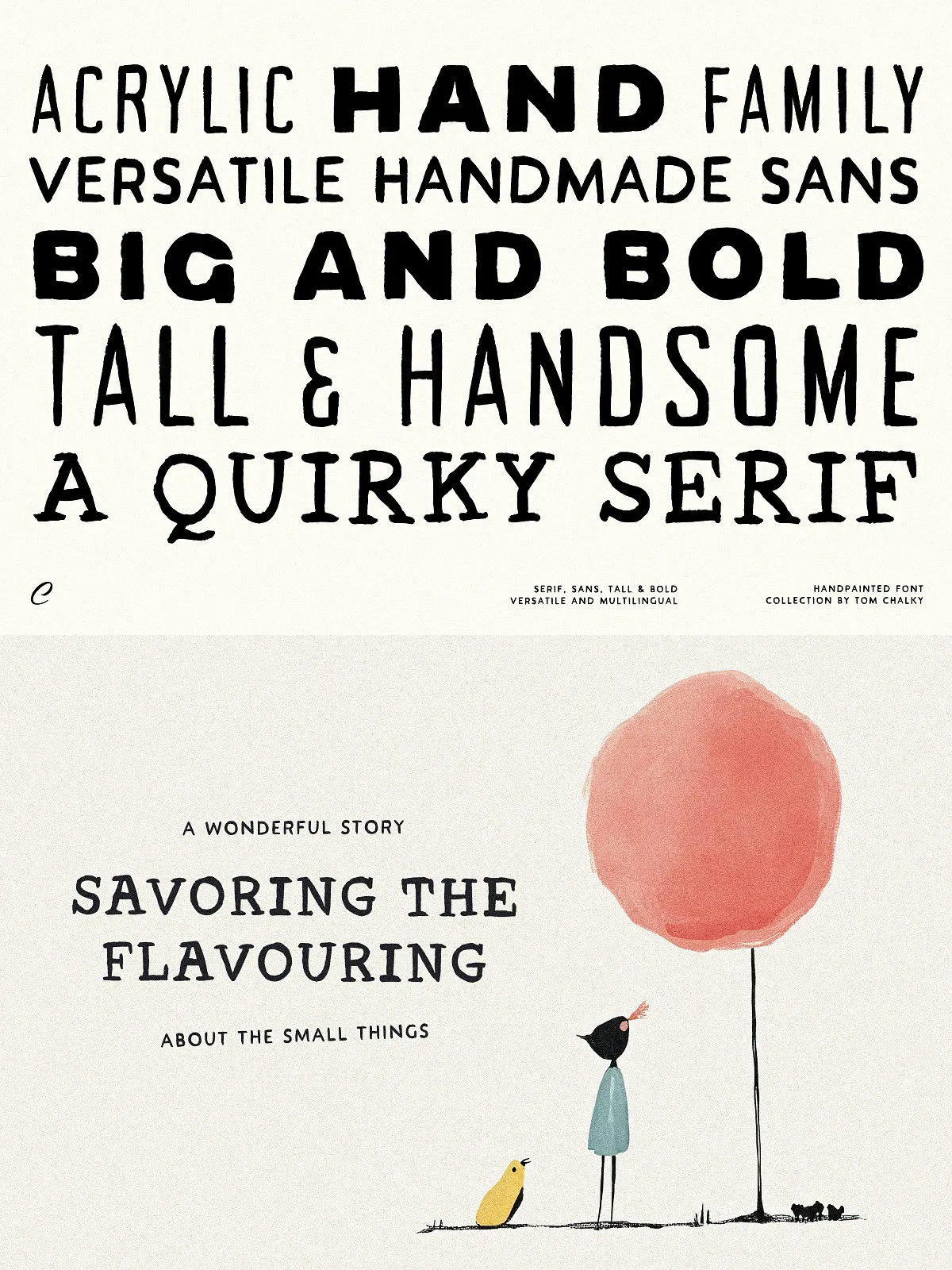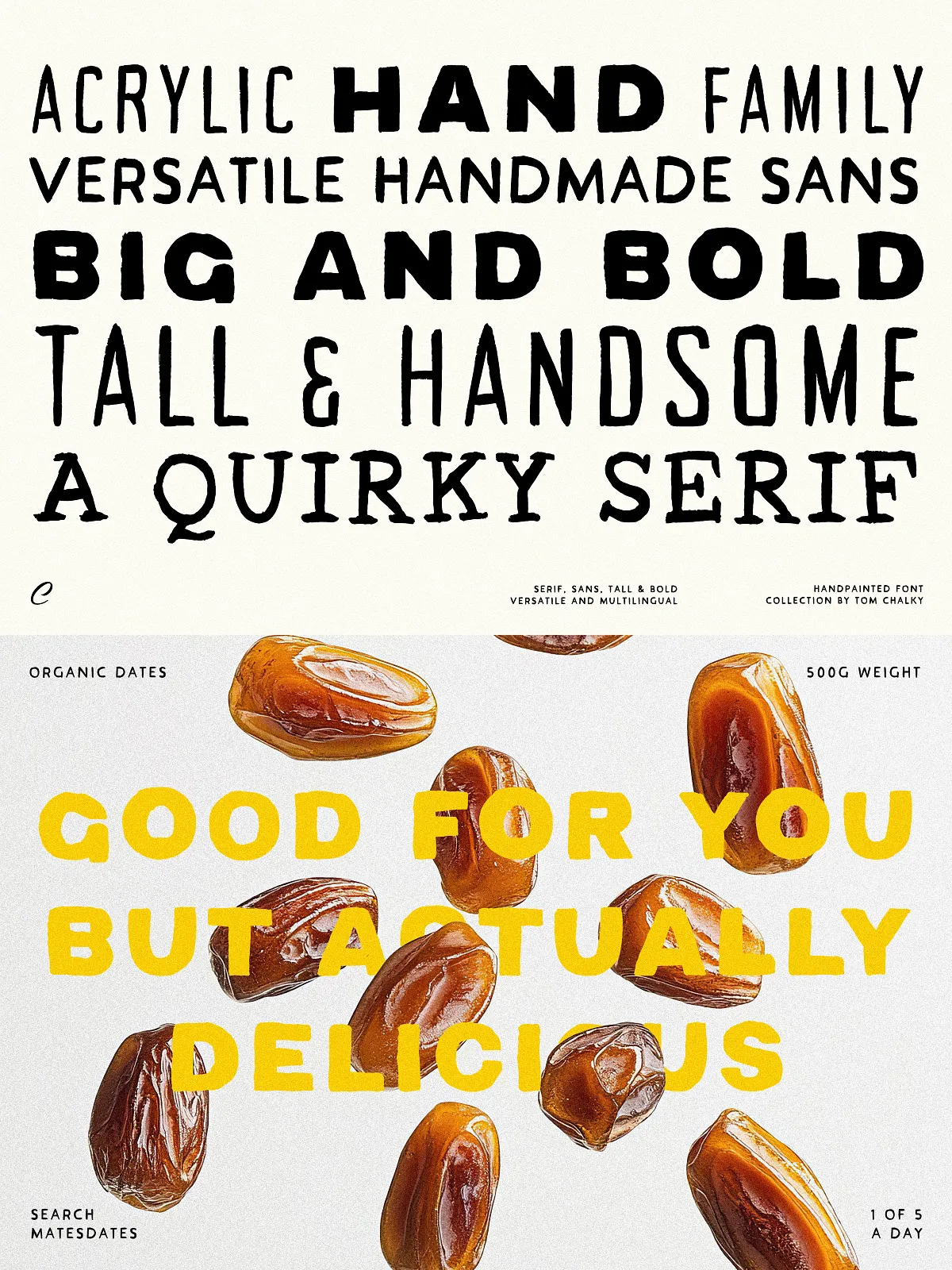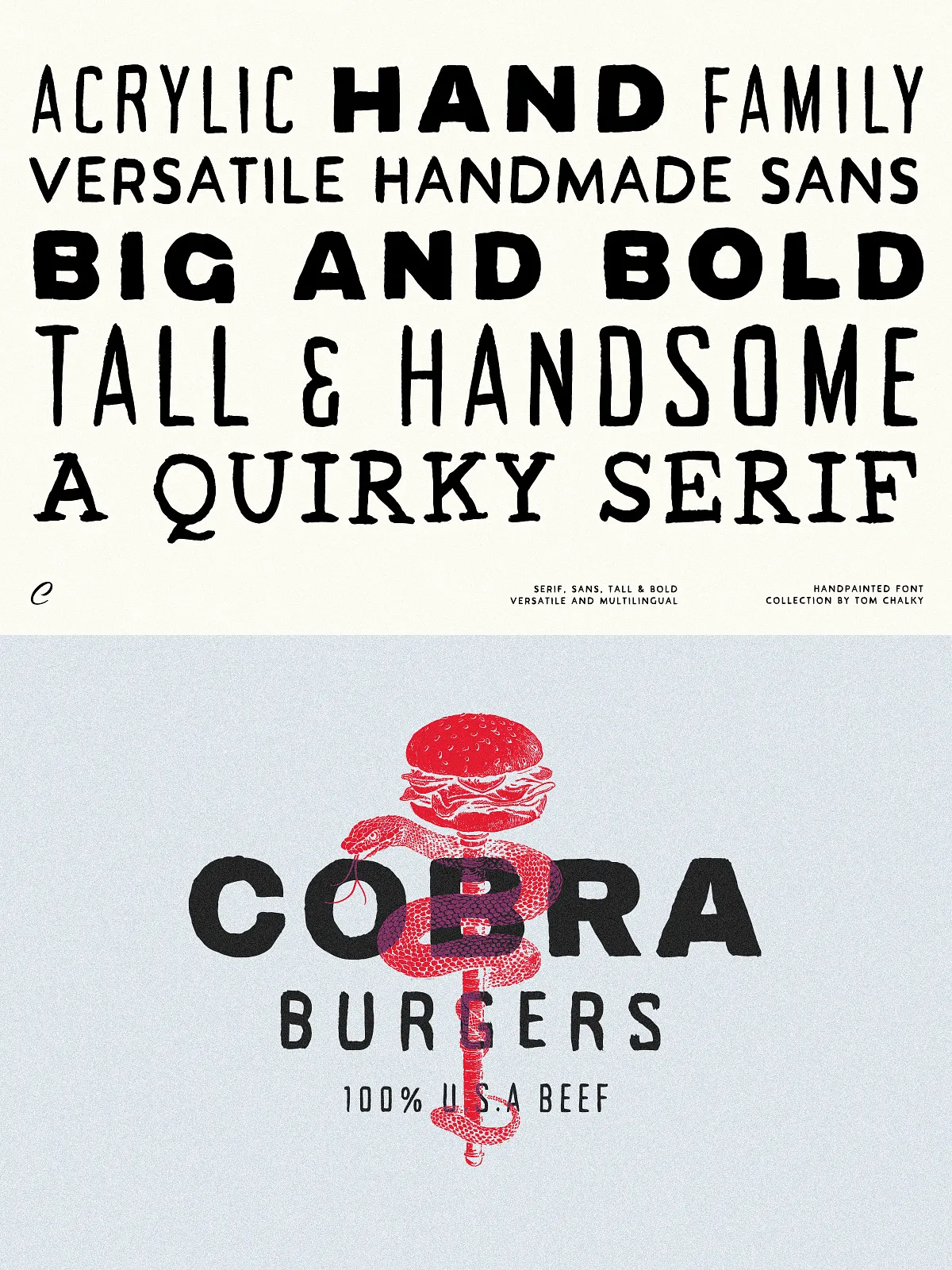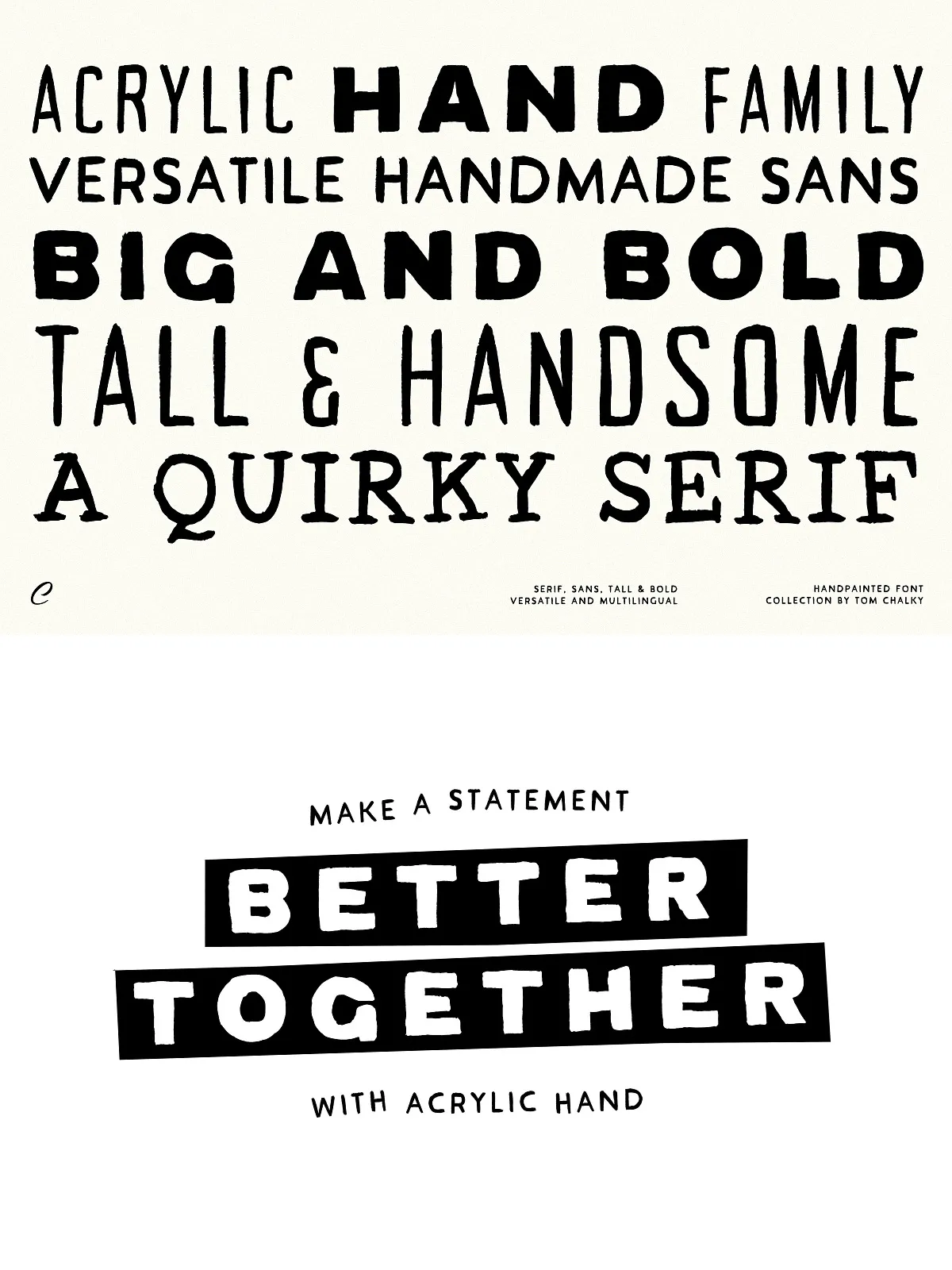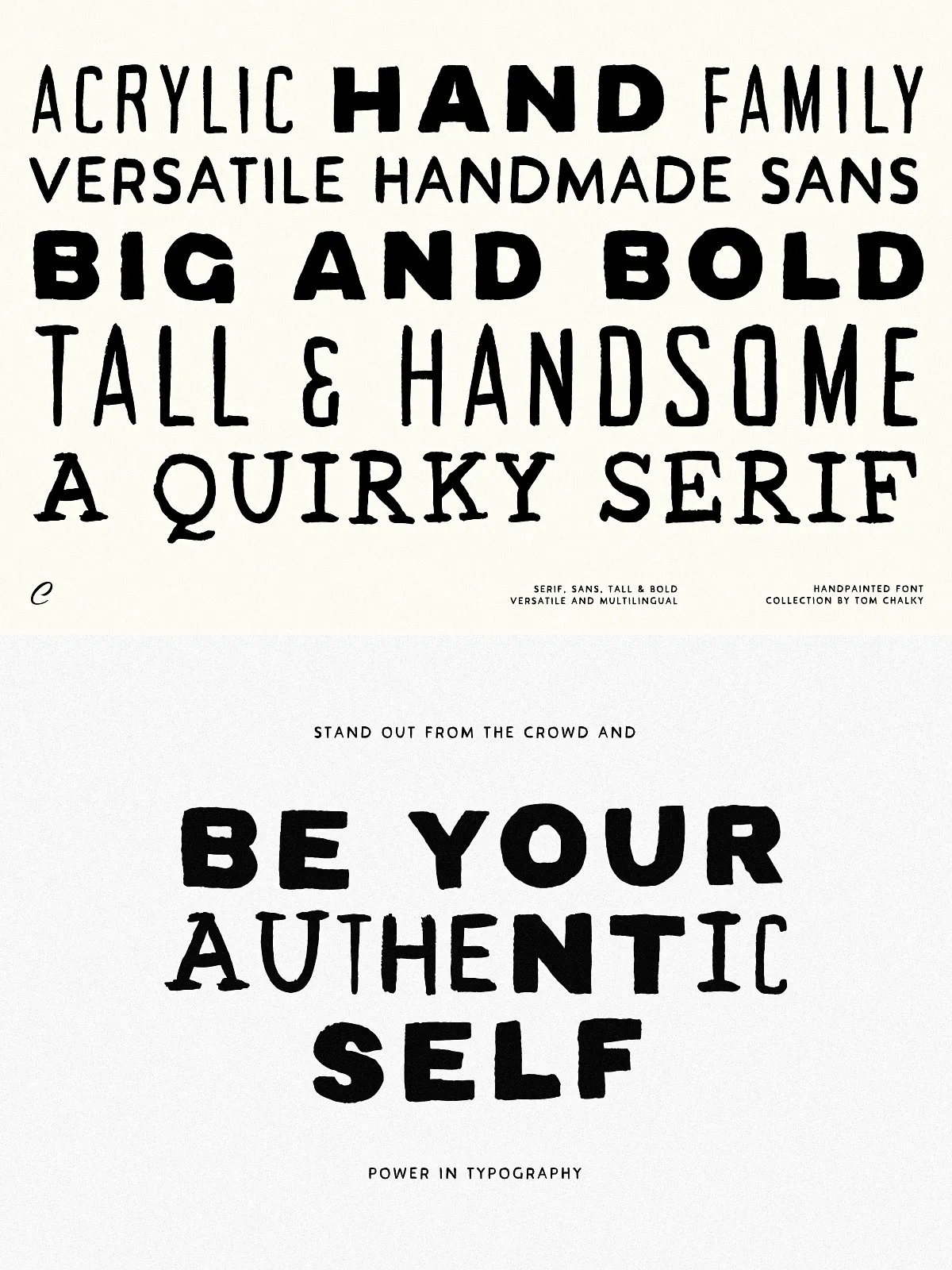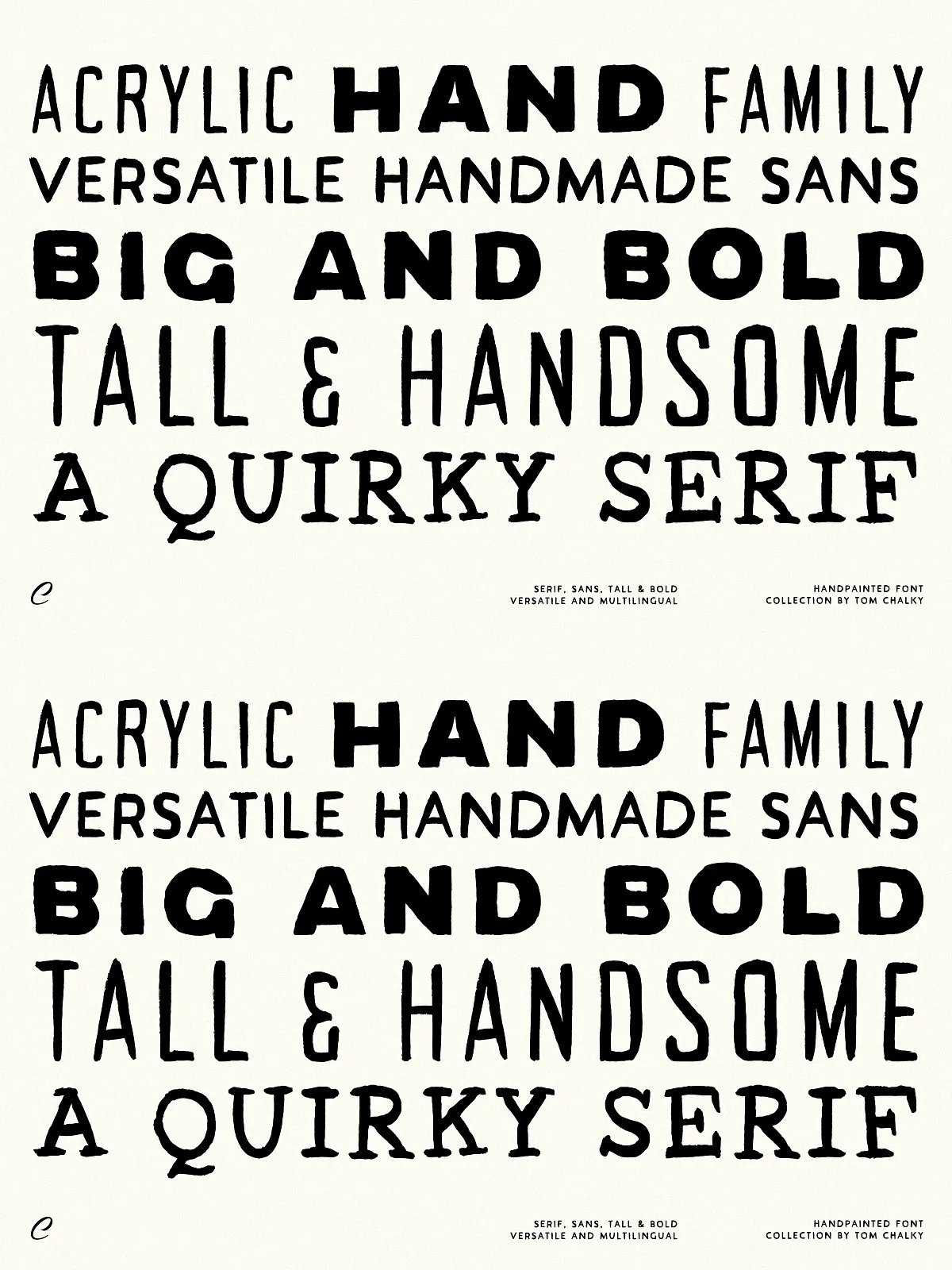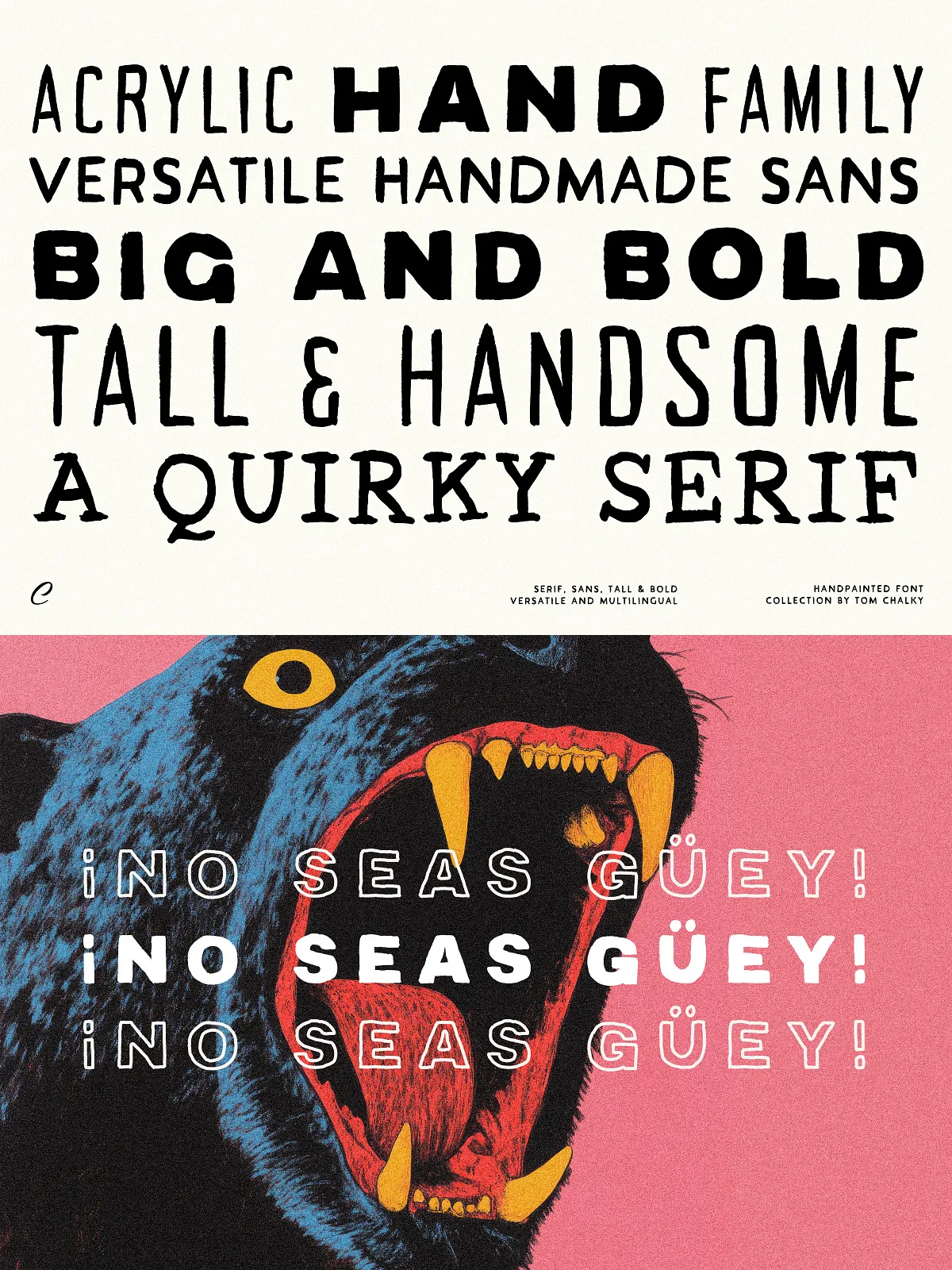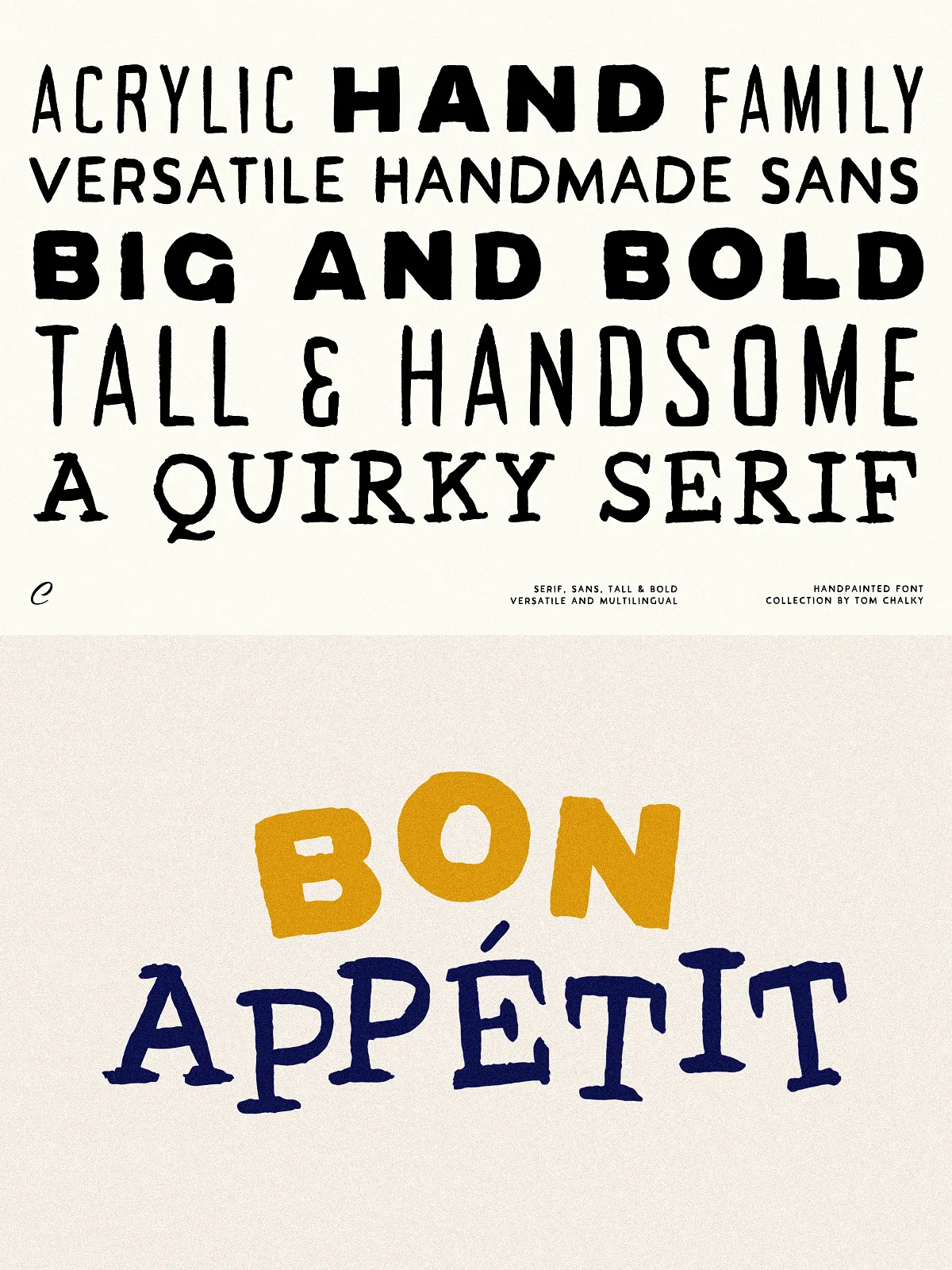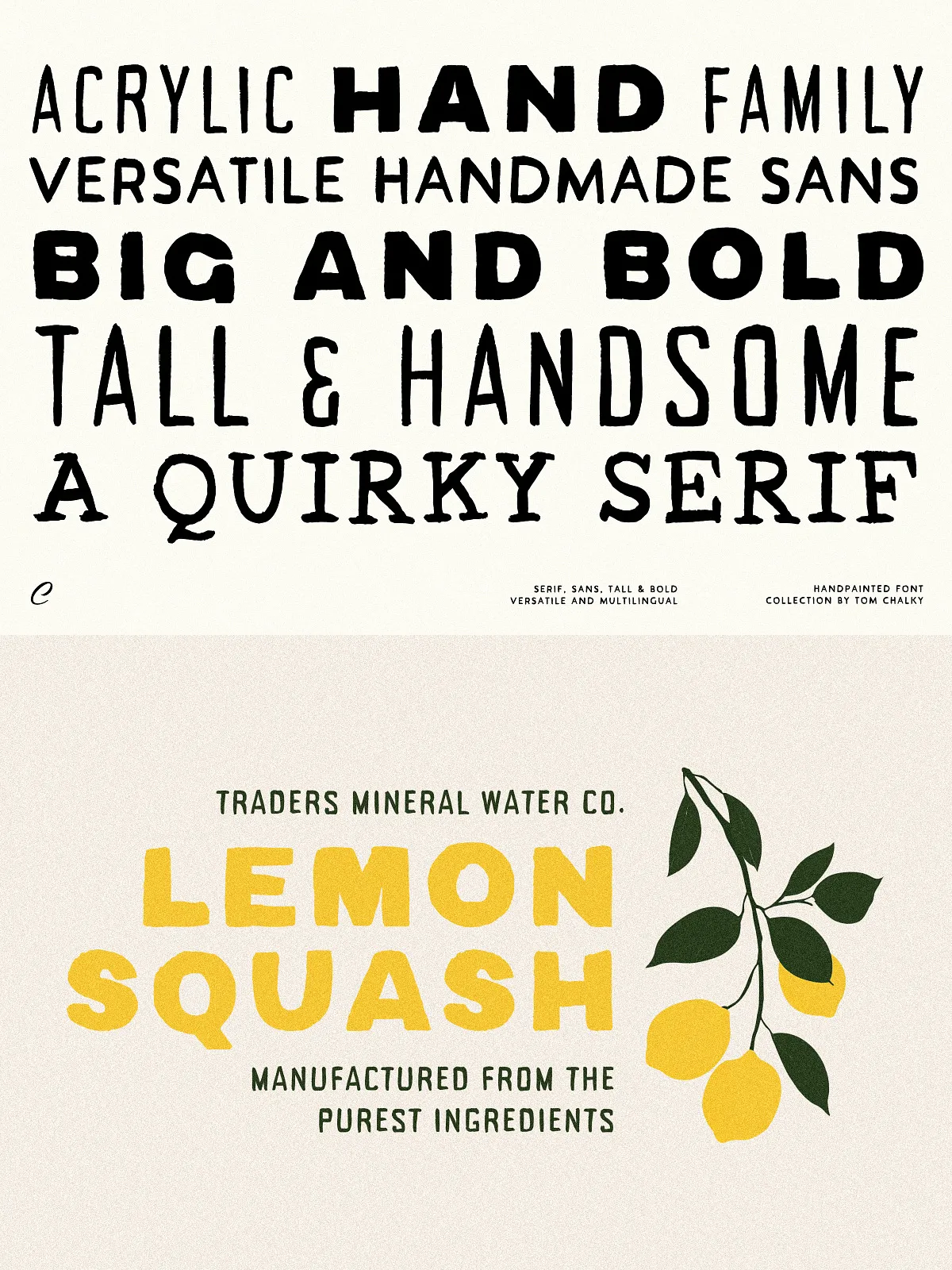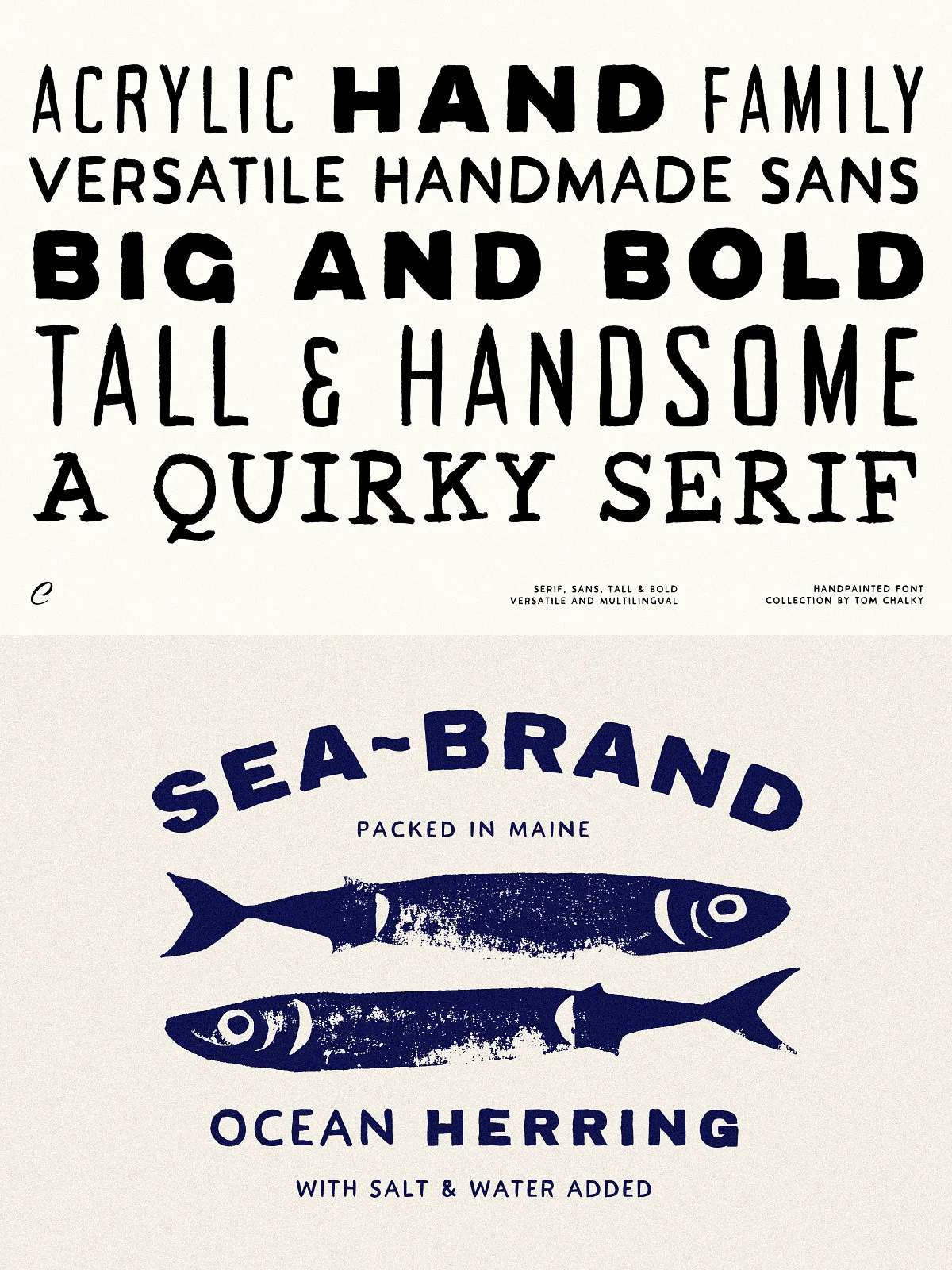
Brush Font Collection – Acrylic Hand
Introducing Acrylic Hand! This versatile brush font collection contains a tall, regular, and thick sans-serif typeface alongside a wonderfully quirky serif—each brimming with character and handmade charm. Designed to complement each other, these fonts can be combined for a dynamic look or stand firm on their own, making them a great choice for design projects needing a clearly human touch.
From bold headlines to packaging and apparel, the Acrylic Hand font collection adds a truly authentic vibe with oodles of perfect imperfections.